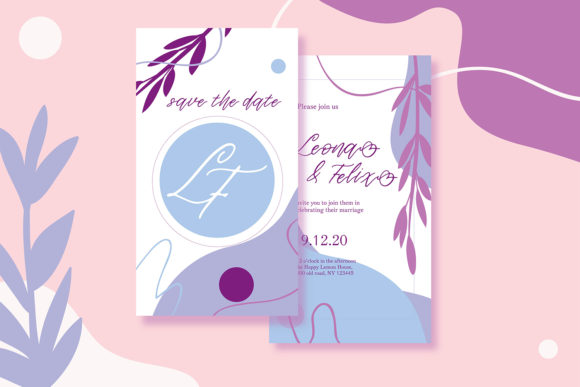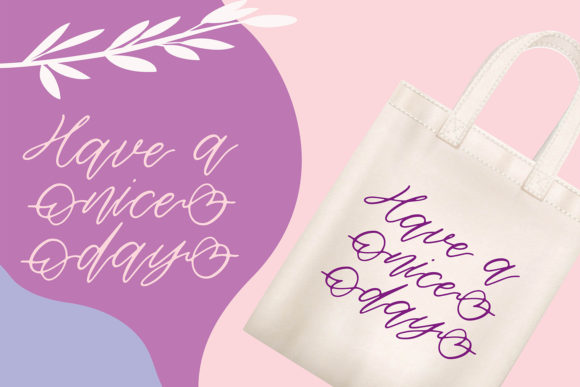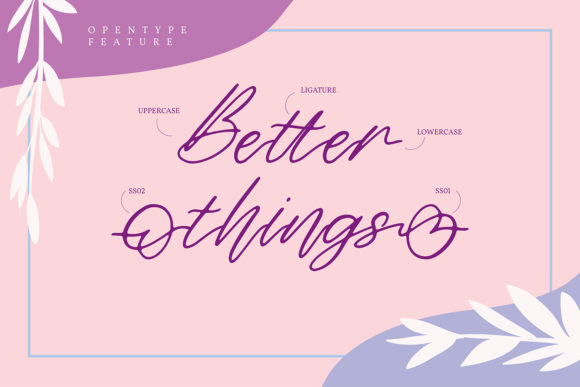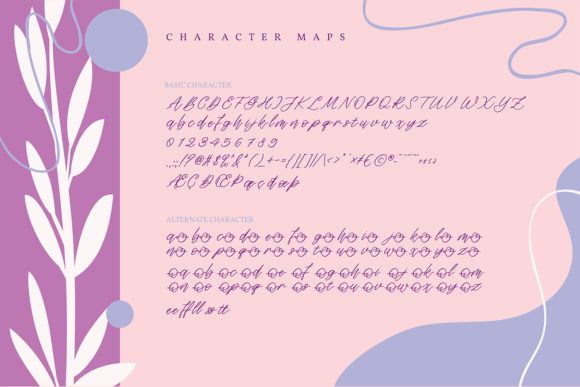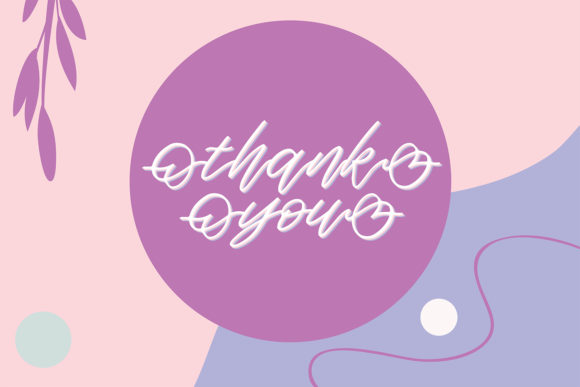
Introduction to Deanica Font
Deanica is a charming and fine charactered script font.
It has a graceful touch and it will most certainly have an unforgettable impact on your creative ideas Deanica is PUA encoded which means you can access all of the glyphs and swashes with ease.
Key Features of Deanica Font
Why Choose Deanica Font?
Deanica Font offers exceptional quality and versatility, making it a valuable addition to your design toolkit. Whether you’re creating for personal projects or commercial use, Deanica Font delivers professional results.